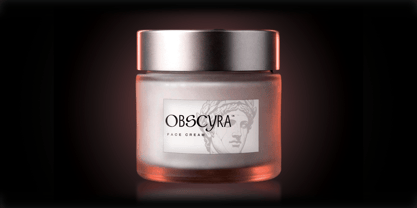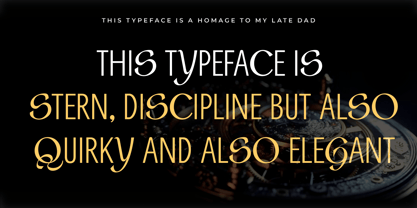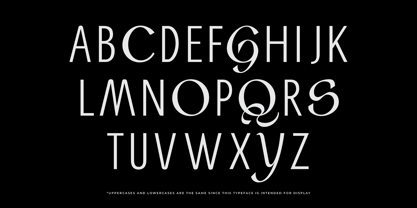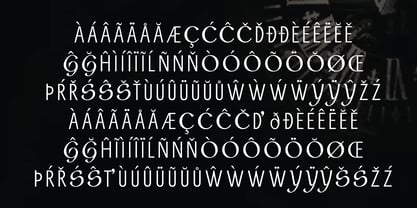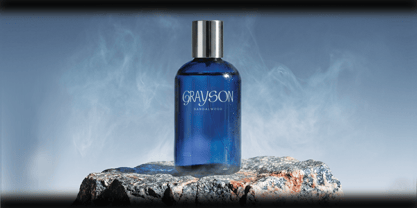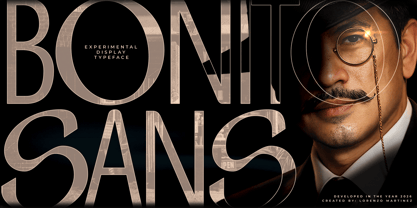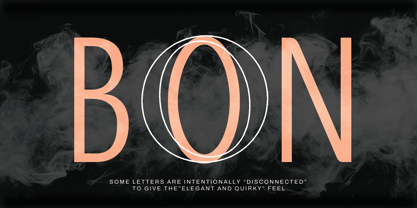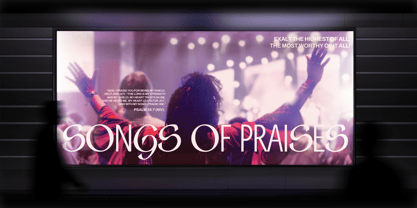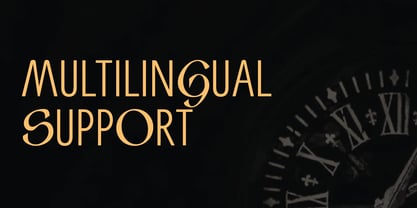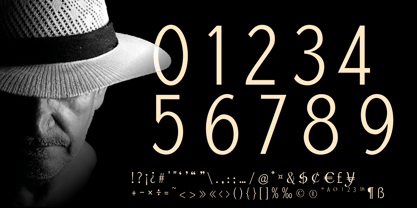
Bonito Sans
Bonito Sans is a contemporary display typeface inspired by memory, discipline, and quiet elegance. Developed in memory of my late father: "Bonito" (nickname). This typeface blends structured sophistication with unexpected character, resulting in a design that feels both commanding and deeply personal.
Features:
• Distinctive Character Shapes
• Refined & Sophisticated Design
• Strong Headline Presence
• Luxury-Inspired Aesthetic
• Unique Signature Details
• Perfect for Large-Scale Typography
Perfect for:
• Luxury Branding & Logos – premium identities, fashion labels, fragrance brands, and boutique businesses
• Editorial & Magazine Design – striking headlines, covers, feature spreads, and luxury publications
• Posters & Campaigns – cinematic promotions, cultural events, exhibitions, and statement typography
• Packaging & Product Design – perfumes, watches, cosmetics, spirits, and premium consumer goods
• Social Media Graphics – elegant, sophisticated, bold, and attention-grabbing visual content
BONITO SANS draws inspiration from vintage gentleman aesthetics, classic tailoring, and heirloom craftsmanship, blending disciplined structure with distinctive character to create a display typeface that feels both timeless and unforgettable.